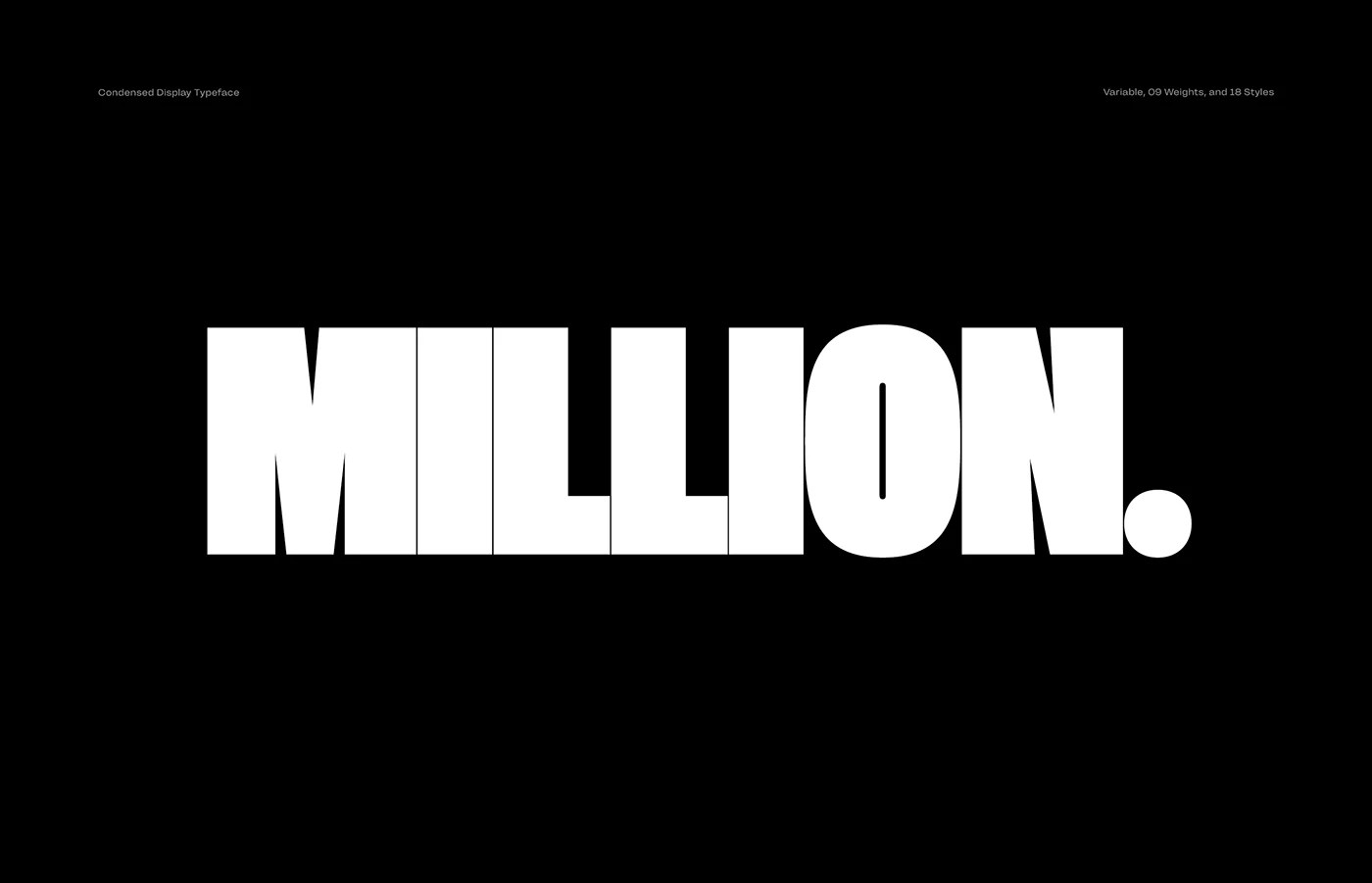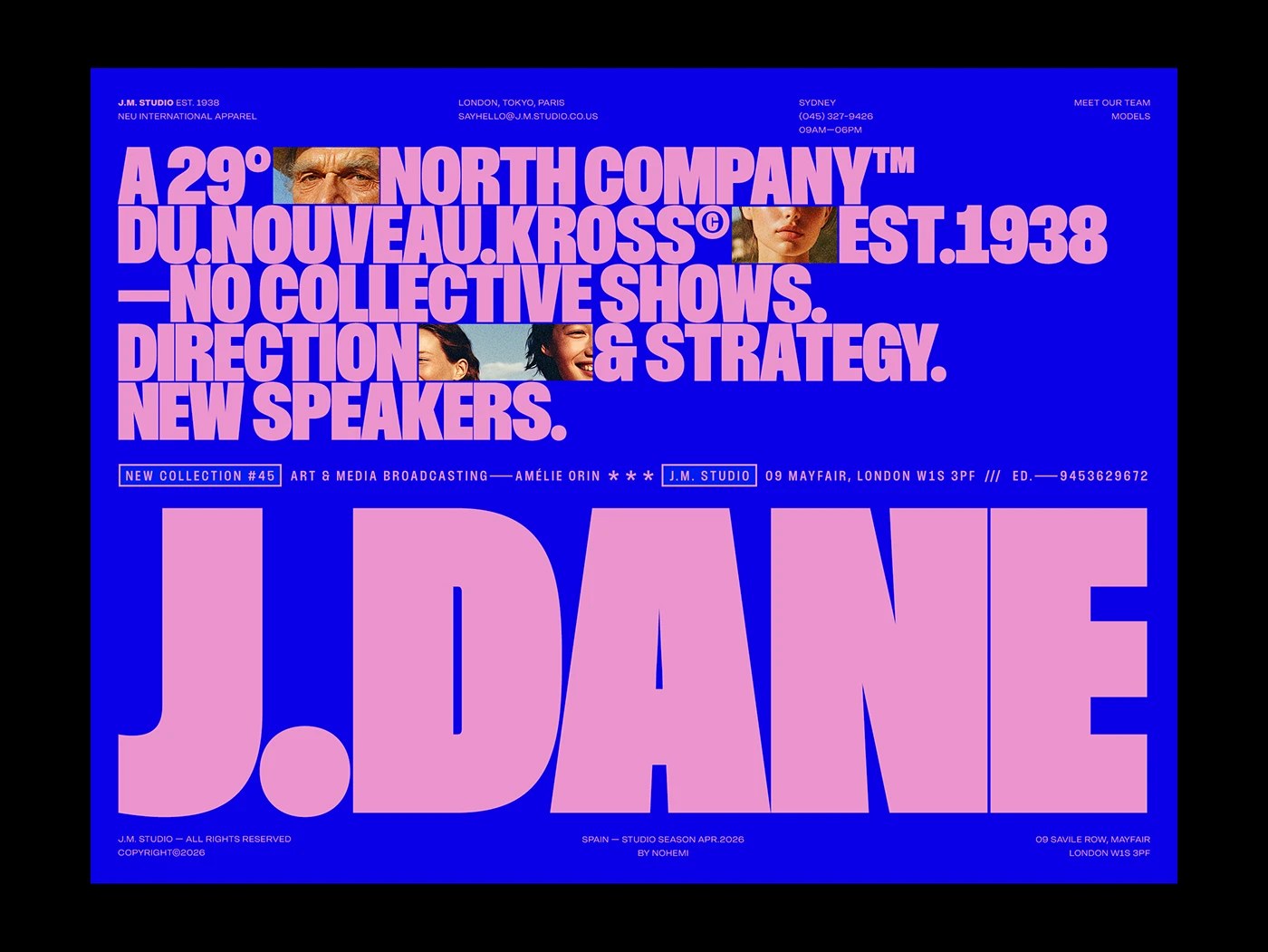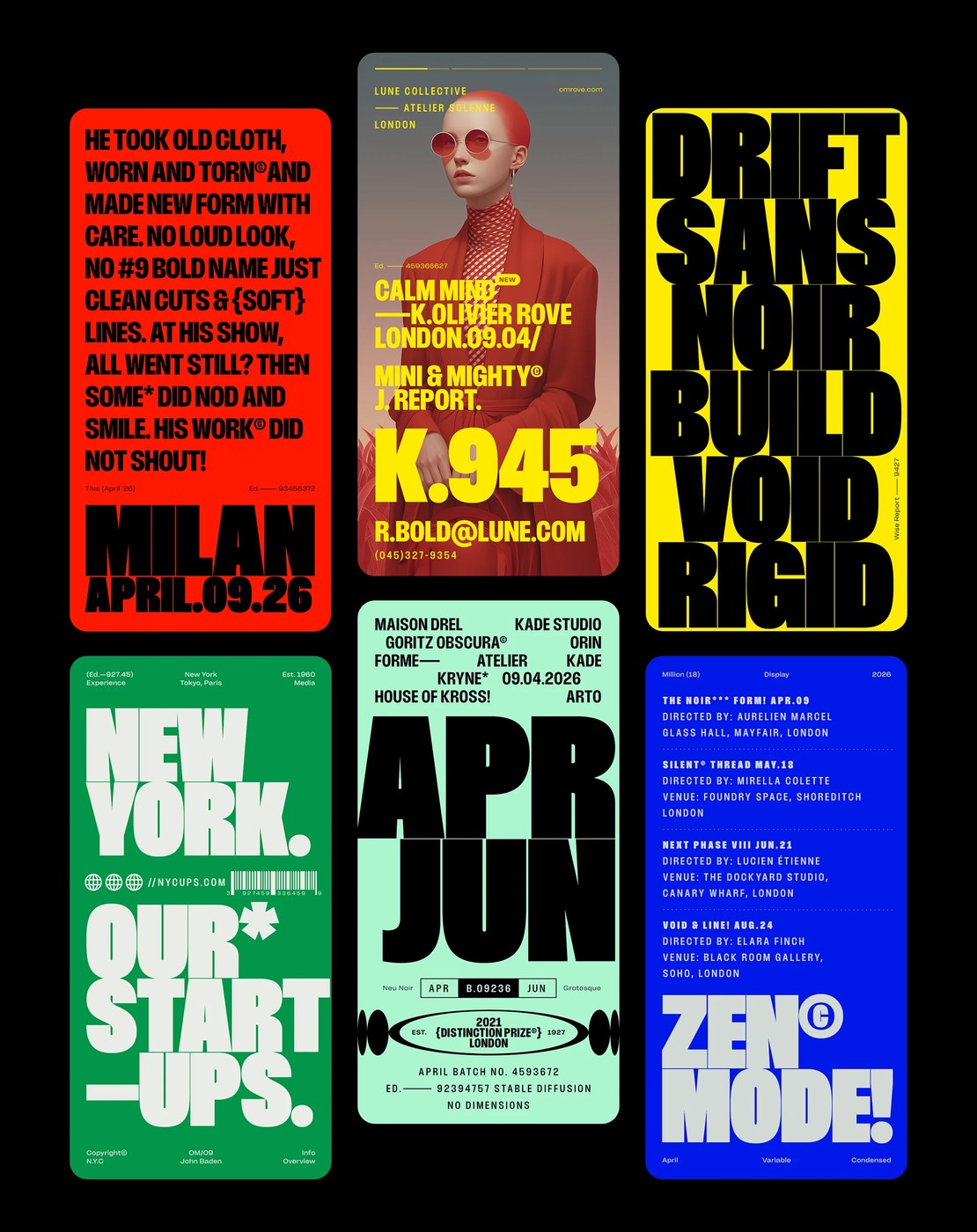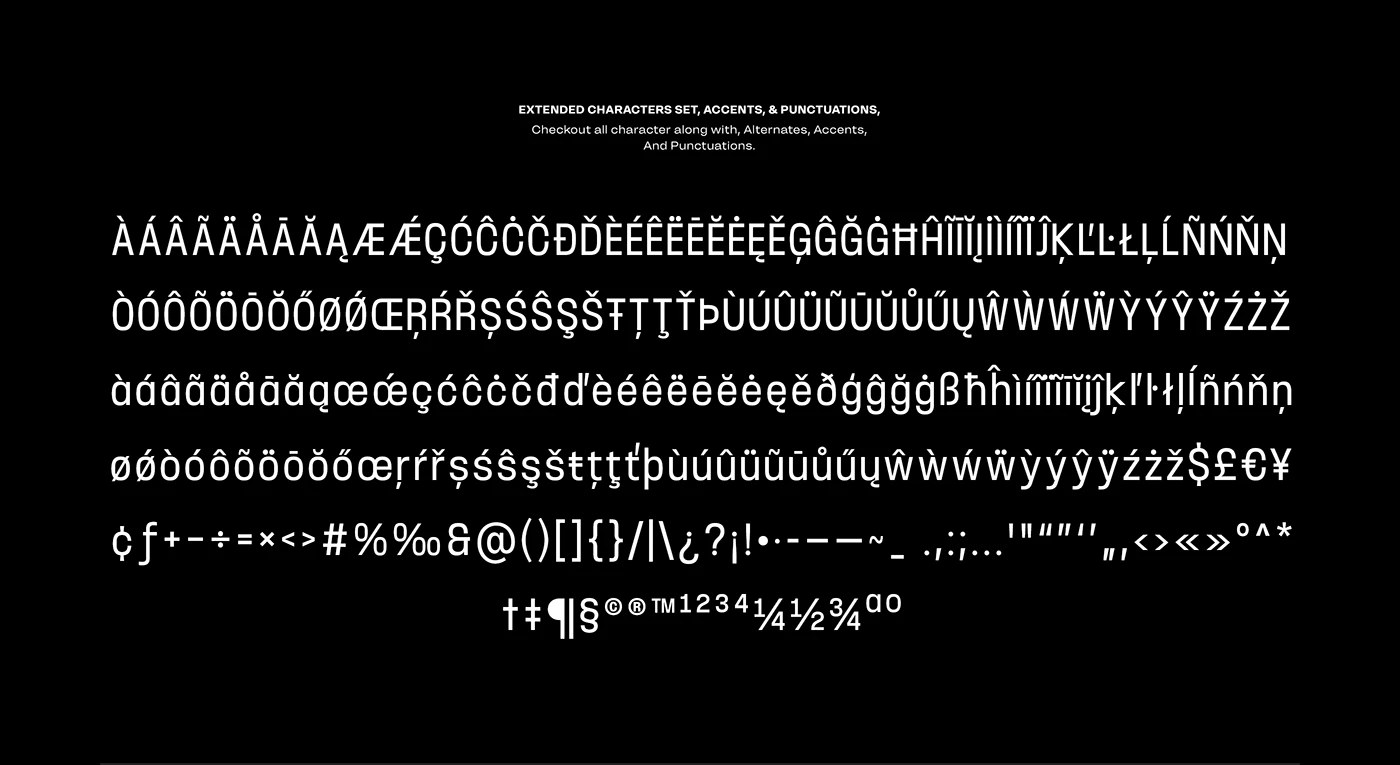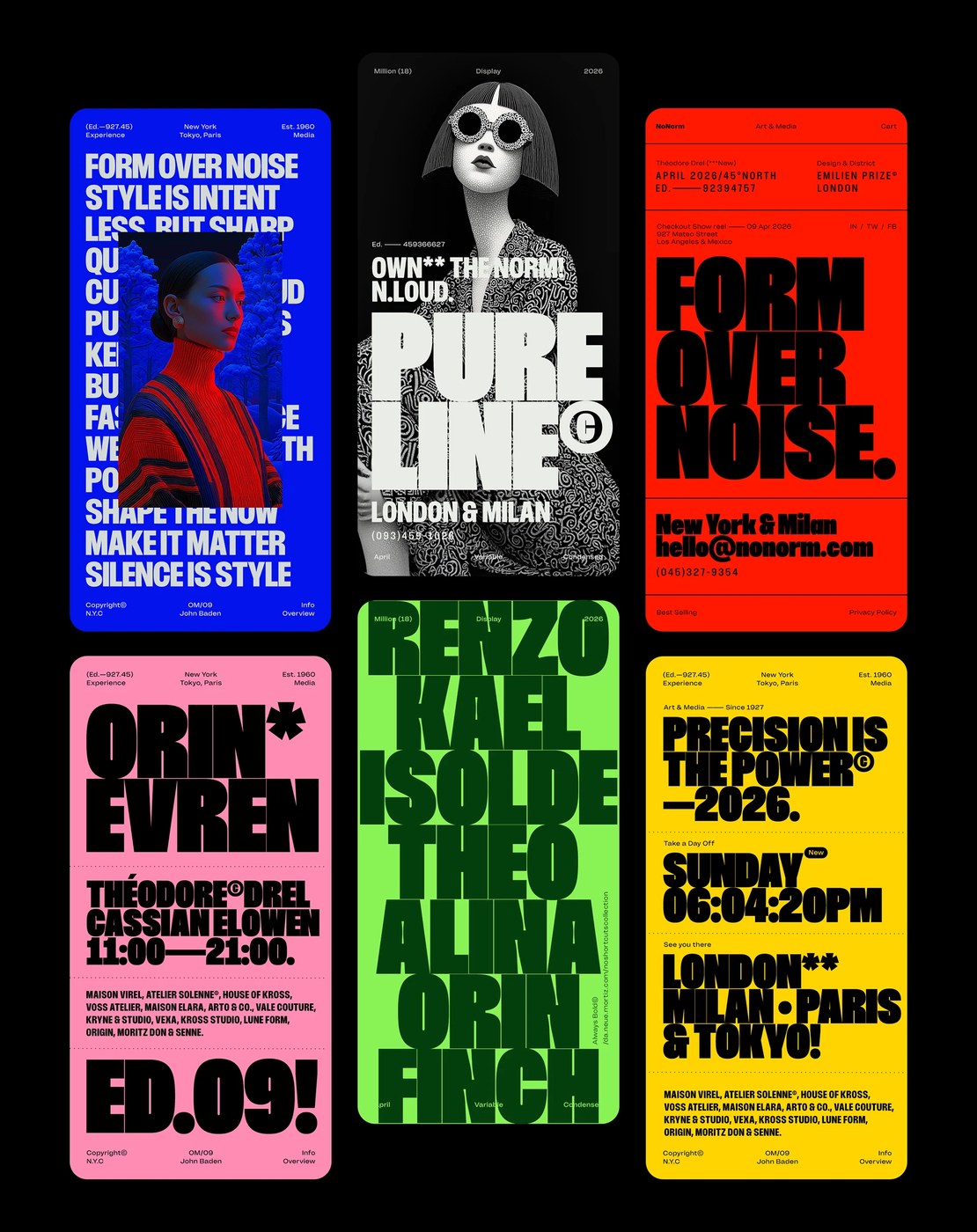
Rajesh Rajput's Million is a condensed display typeface variable font design 2026. 18 styles, 9 weights, inktraps — specimen layouts at full-frame scale.
Rajesh Rajput built Million around a single premise: the letterform should occupy the frame, not sit inside it. The opening specimen sets the argument immediately — 'MILLION.' in condensed black, white on pure black, the word filling roughly 70% of the frame width, the period landing as a final beat of mass at the right edge. The weight comparison specimen extends this: 'MILLION HAS EIGHTEEN STYLES NINE WEIGHTS!' mixes thin, regular, and black in a single phrase, and the contrast between stroke widths in the same word does all the visual work. An electric blue poster stacks condensed pink type across five lines over embedded portrait thumbnails, every edge bled — the typeface becomes the grid.
Million: Condensed Display Typeface and Variable Font Design 2026
The 18 styles span nine weights from Thin to Black, with a variable font axis and an inktraps optical variant for smaller sizes where ink fill in tight corners would compromise legibility. The red-yellow editorial triptych runs three color fields end to end — orange-red, black, yellow — each panel a different weight and register, consistent enough in proportion to read as a system across extreme tonal shifts. The specimen is the argument for the condensed display typeface: whether the work ends up in advertising, editorial, or motion, this variable font design handles it.